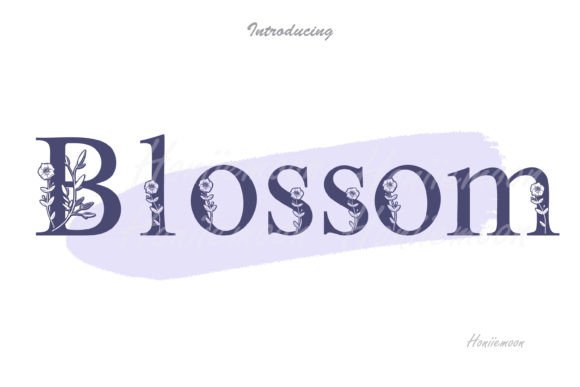
The Blossom Font: A Game-Changer for Your Designs
I’ll never forget the time I was working on a project for a client who wanted a fun and playful vibe. I had all the design elements in place, but something was missing. That’s when I stumbled upon the Blossom font. It was like a breath of fresh air – a cool and fun decorative font that instantly elevated my design. In this article, I’ll share my experience with Blossom, its features, and how to make the most of it in your designs.
An Honest Review of Blossom Font
What I Love About Blossom ✨
- Its cute and jolly personality, perfect for designs that require a playful touch ✅
- The bold and colorful appearance that makes designs pop ✨
- The versatility of the font, allowing it to be used in various design projects, from digital to print 📚
- The extensive range of OpenType features, glyphs, and stylistic alternates that offer endless creative possibilities 🤩
While Blossom is an amazing font, there are a few things to keep in mind:
- Some of the more intricate details might get lost when used at very small sizes 🤔
- It’s a decorative font, so it’s not suitable for body text or very formal designs ⚠️
The Backstory of Blossom Font
Blossom was designed by a team of creatives who wanted to create a font that would bring joy and playfulness to designs. Inspired by flowers, nature, and the beauty of imperfection, Blossom is a font that’s meant to make you smile. Whether you’re a designer, crafter, or creative hobbyist, Blossom is here to help you add a little magic to your projects.